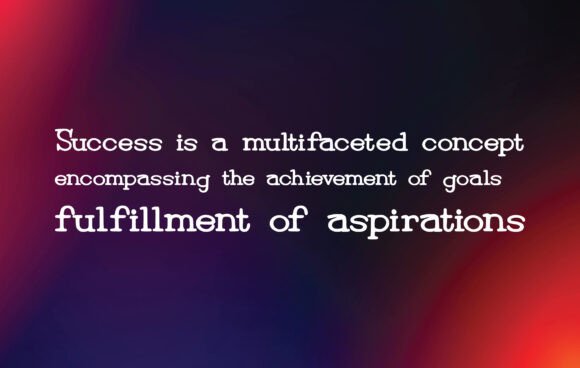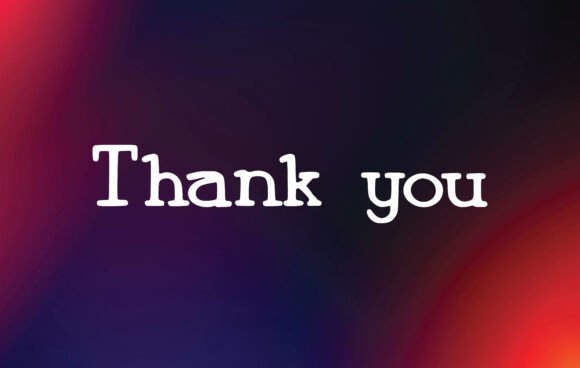
The Ultimate Guide to Finn Font: Elevate Your Designs with this Stunning Typeface
I’ll never forget the time I was working on a logo design project for a new coffee shop. My client wanted a font that was both elegant and playful, but I was struggling to find the perfect fit. That’s when I stumbled upon Finn Font, and it instantly became my go-to choice. In this article, I’ll share my love for Finn Font, its features, and how to make the most of it in your designs.
An Honest Review of Finn Font
Finn Font has been a game-changer for my designs, and here’s what I love about it:
- ✨ Lovely and beautiful aesthetic that adds a touch of sophistication to any design
- ✅ Highly versatile and works well for logos, branding, quotes, and more
- 🔥 Perfect for creative projects that require a unique and eye-catching font
However, I do have to mention a few quirks:
- 🤔 Some users might find the font a bit too delicate for certain design applications
- ⚠️ Limited availability of certain OpenType features in certain software
The Backstory of Finn Font
Finn Font was designed by a team of typographers who wanted to create a font that was both beautiful and functional. Inspired by traditional serif fonts, Finn Font features a unique blend of classic and modern elements. The font’s creator aimed to craft a typeface that would be perfect for creative projects, logos, and branding.
| Author | moonlight craft |
| What is Finn Font best used for? | Finn Font is perfect for creative projects, logos, branding, quotes, and more. |
| Is Finn Font suitable for body text? | While Finn Font is beautiful, it’s best used for headlines and titles. For body text, consider a more readable font. |